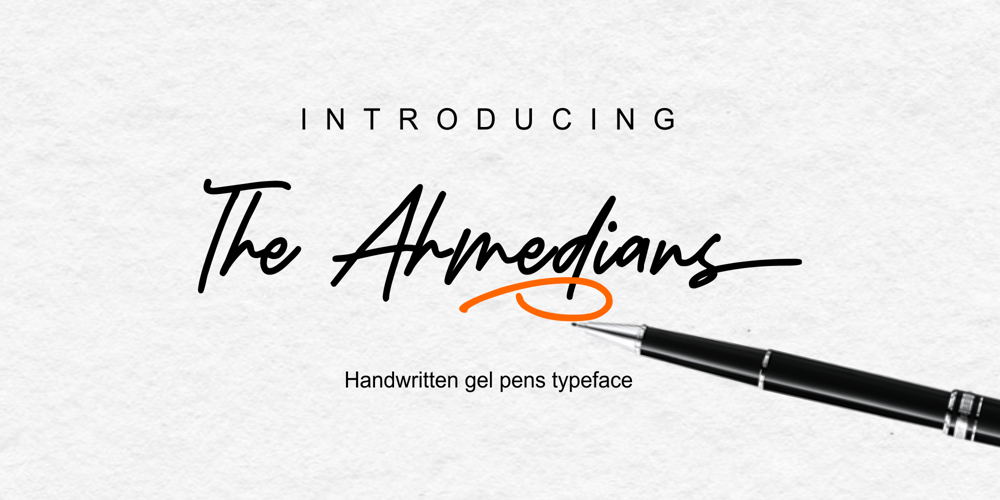
The Ahmedians Font Family was designed by Zamjump and published by Zamjump. The Ahmedians contains 1 styles and family package options. The Ahmedians is a handwritting gel pen typeface, The Ahmedians is an out-of-this-world addition to your font arsenal, perfect for quote graphics, modern/edgy vinyl cutting projects, or logos & branding. The Ahmedians is best for:- social media graphics or quote graphics- logos + branding with a modern feel- crafting projects with your Cricut or Silhouette – Starstuff has a super smooth edge perfect for vinyl cutting or SVG designs – website design + website accents- clean print design, like magazines + flyers- header elements that need a handwritten touch The Ahmedians :- full upper + lower case characters- numbers + punctuations- Multi Language Support- Standard double letter ligatures ee, ff, ll, oo, rr, ss, tt- PUA-encoding